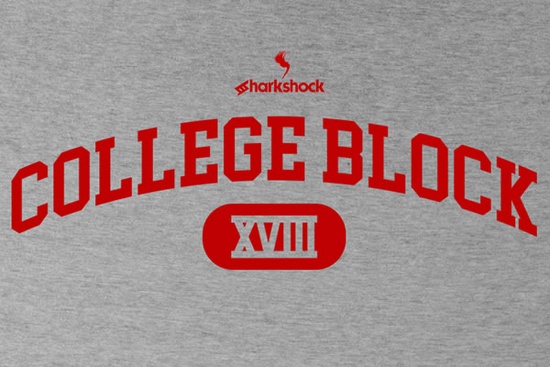
If you’ve ever wanted to add that classic campus vibe to your designs, College Block Font is worth a closer look. It’s not just another blocky display typeface it’s built with the kind of character you’d see on vintage varsity jackets and retro letterman tees. Originally inspired by Blockletter Tall, this version adds serifs and extra glyphs that give it more personality and flexibility. Whether you’re designing merch for a school project, launching a print-on-demand shop, or just personalizing a gift, this font brings that nostalgic collegiate energy without looking dated.
What makes it especially handy? It includes kerning adjustments and European accent support something many display fonts skip. That means you can confidently use it for international clients or multilingual projects without awkward spacing or missing characters. And yes, those little serifs? They’re subtle but intentional, echoing the stitching details found on real college apparel.
Who should consider using College Block?
This font isn’t just for university branding. Here’s who gets the most out of it:
- Print-on-demand sellers Pair it with sweatshirts, mugs, or posters targeting alumni, students, or sports fans.
- Crafters and hobbyists Use it in Cricut or Silhouette projects for personalized totes, tumblers, or dorm decor.
- Small design studios Add it to your toolkit when clients want that “school spirit” aesthetic without licensing team logos.
- Event planners Great for homecoming banners, graduation invites, or reunion merch.
It works especially well alongside other campus-inspired fonts like Legacy College or Preppy Varsity if you’re building layered designs or need contrast between headlines and body text.
How does it compare to similar display fonts?
Not all “college-style” fonts are created equal. Some lean too cartoony, others feel stiff or lack character variety. College Block Font strikes a balance bold enough to stand out on apparel, but refined enough for printed materials.
For example, if you’re working on athletic gear, you might also explore Soccer Football Jersey Font for numbers and player names. Or if you want something more modern and minimal, Sunspell offers clean lines that pair surprisingly well with College Block’s textured edges.
One thing to note: while it’s great for headlines and short phrases, it’s not meant for long paragraphs. Like most display fonts, readability drops at smaller sizes or dense layouts. Stick to titles, logos, quotes, or accent text.
What kinds of projects work best with this font?
Here are some real-world uses we’ve seen designers love:
- Custom T-shirts Alumni reunions, Greek life events, or campus club merch.
- School spirit posters Pep rally announcements, championship countdowns, or hallway decor.
- Graduation gifts Personalized frames, keychains, or keepsake boxes.
- Digital thumbnails YouTube intros, Instagram stories, or TikTok graphics targeting student audiences.
Pro tip: Try pairing it with a simple sans-serif (like Helvetica Neue or Montserrat) for contrast. The serif details in College Block pop even more when they’re not competing with another ornate font.
Any gotchas or things to watch for?
A few small notes based on user feedback:
- The serifs can get lost at very small sizes test prints before mass production.
- While it supports European accents, double-check your specific language needs if you’re localizing for non-English markets.
- Some users wish there were alternate glyphs for certain letters but the included set covers most common cases.
If you’re looking for more stylistic alternates or ligatures, check out the full product page sometimes extended licenses or bundles include bonus characters.
Quick checklist before you start:
- Test scale Does it still read clearly at the size you’ll be printing or displaying?
- Check contrast Dark backgrounds? Light ink? Make sure the serifs don’t disappear.
- Pair wisely Don’t stack it with another heavy display font. Let it breathe.